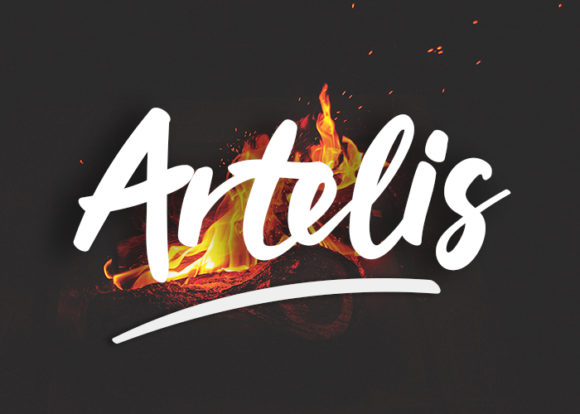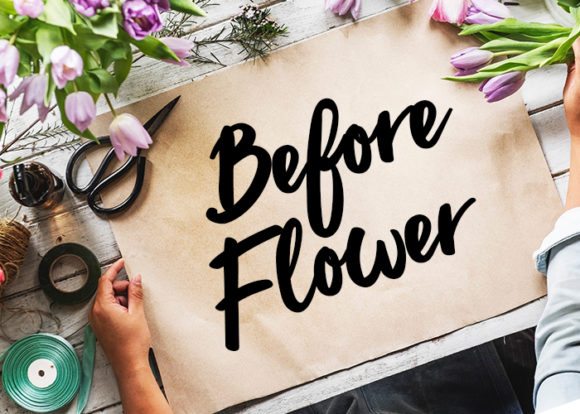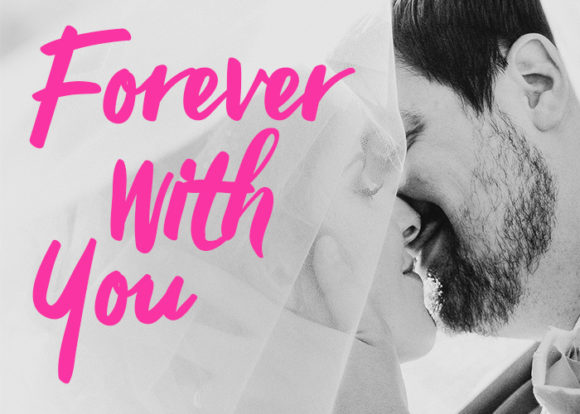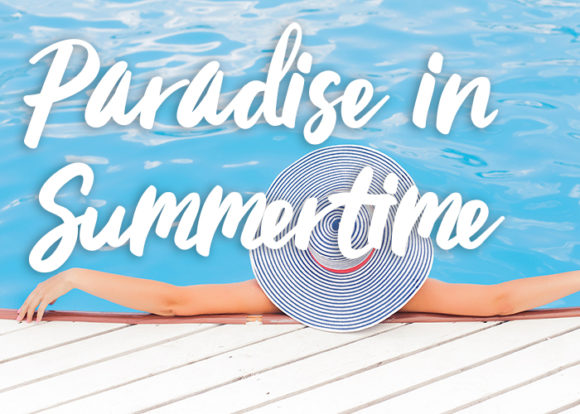
Artelis Font
About Artelis Font
The Artelis is a beautiful handwritten font with an unique style. It has an elegant movement and will add some grace to your designs.
It’s perfect for branding projects, logos, wedding designs, social media posts, advertisements, product packaging, product designs, label, photography, watermarks, and any other design which needs a striking touch.